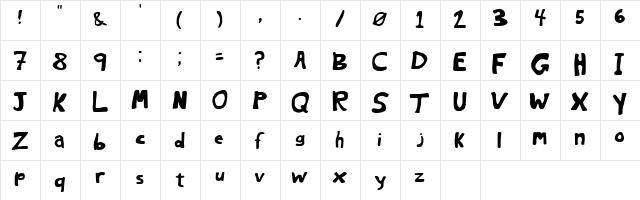
Cornbread Regular
Design Context for Cornbread Typeface
Cornbread is a composed and adaptable typeface that performs quietly and consistently across a wide range of design contexts.